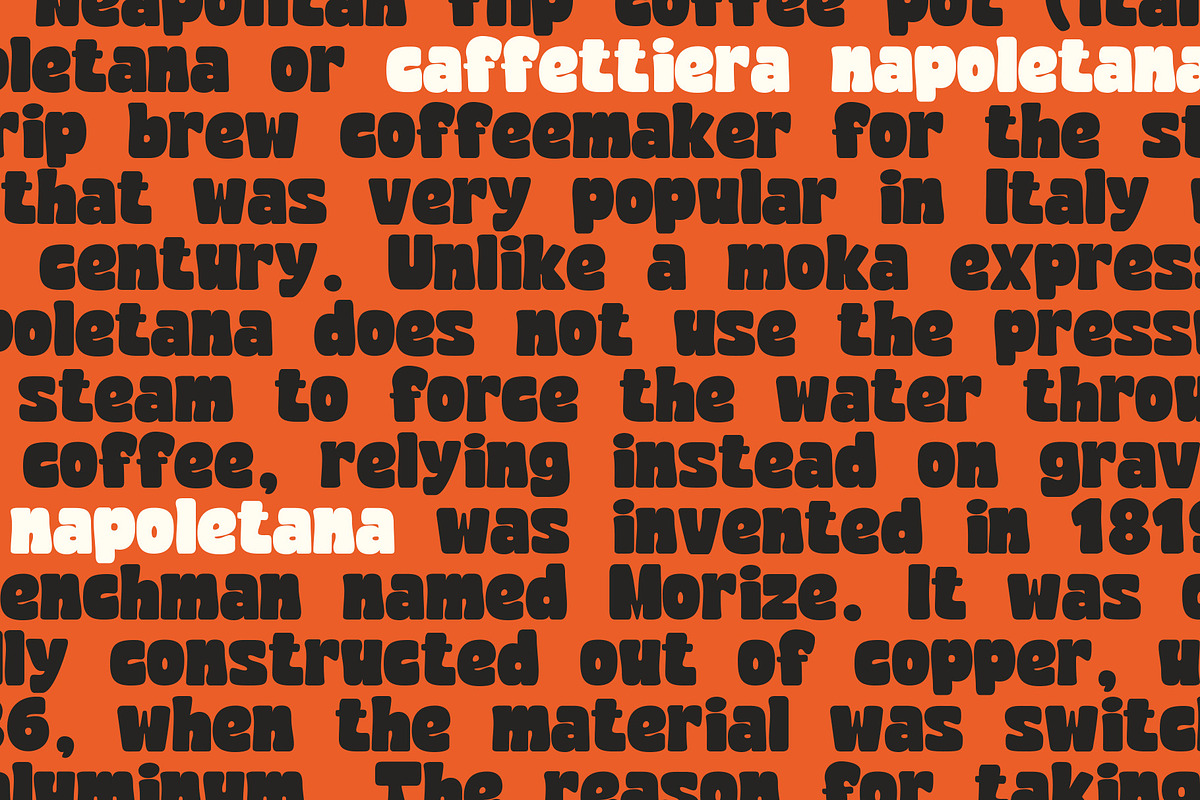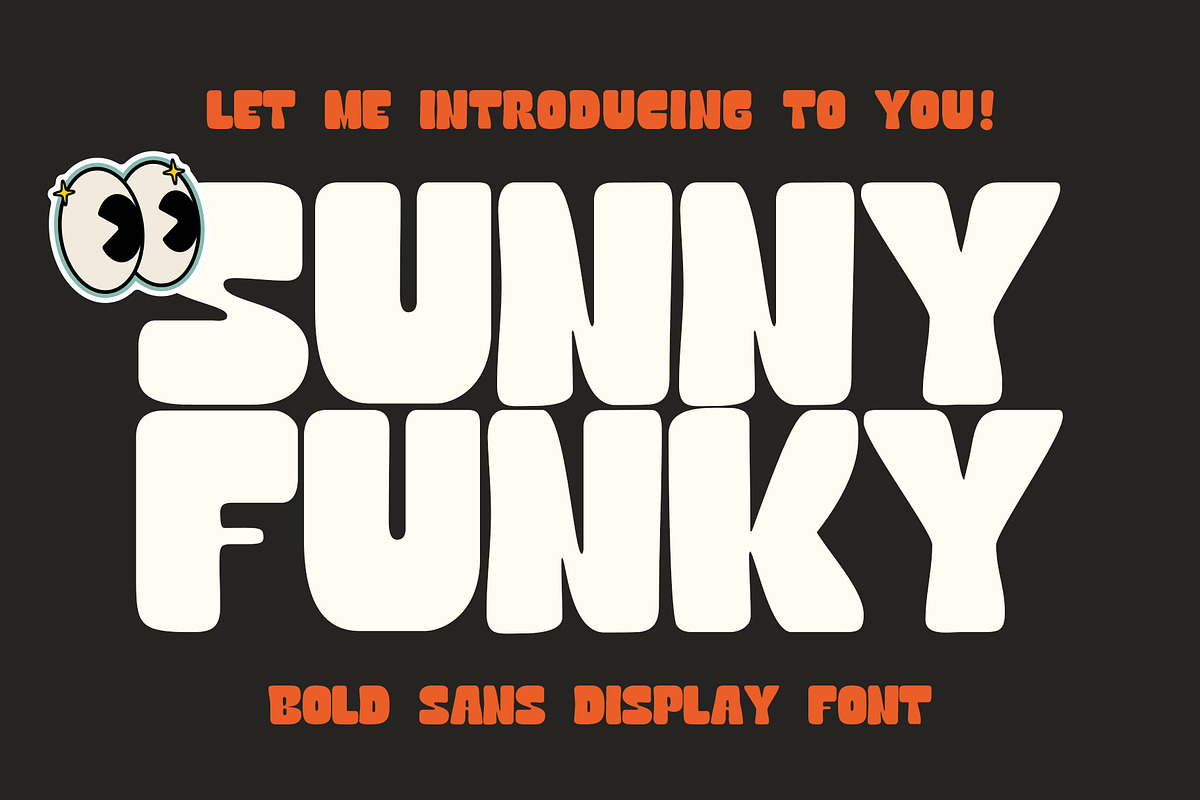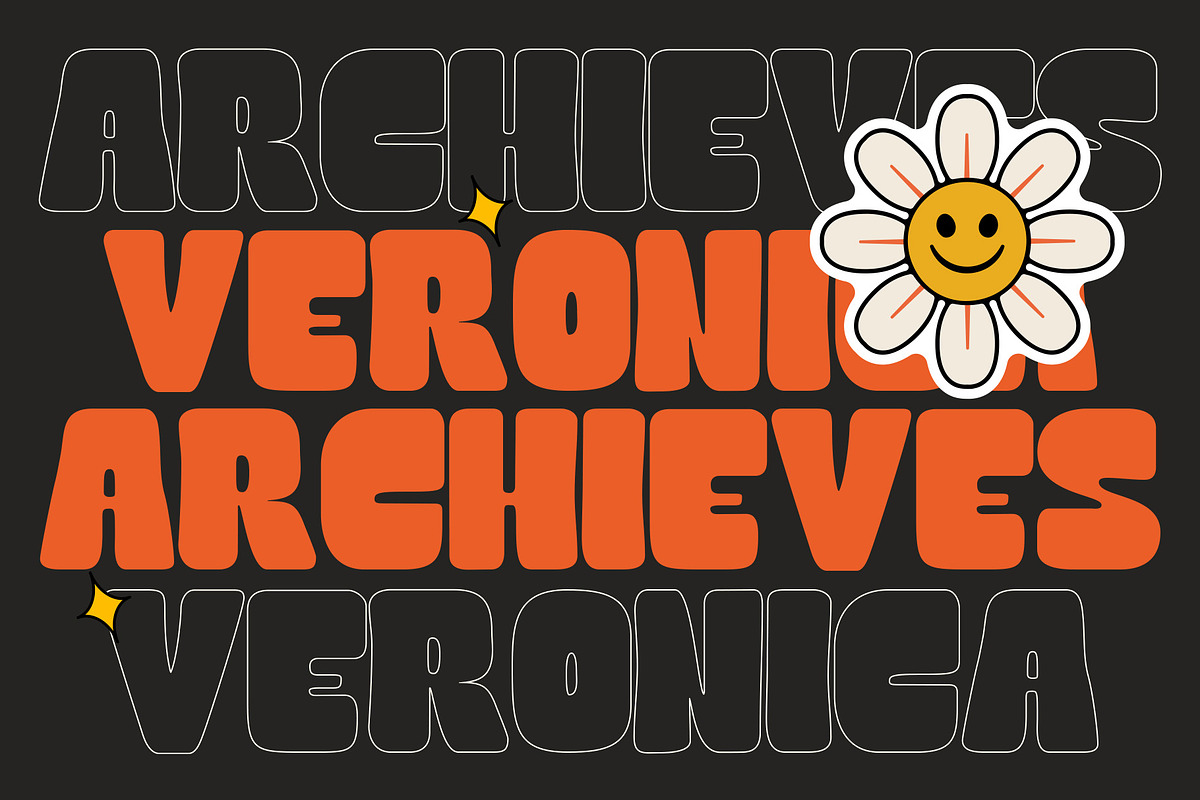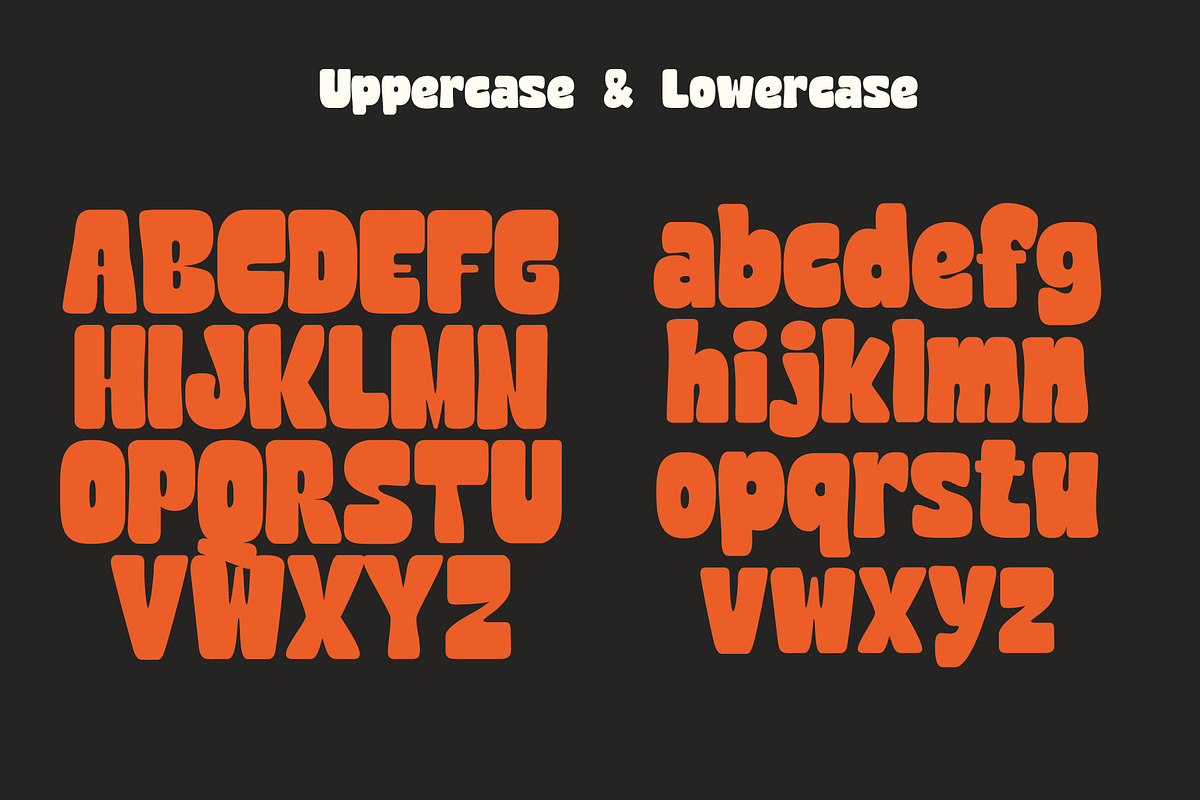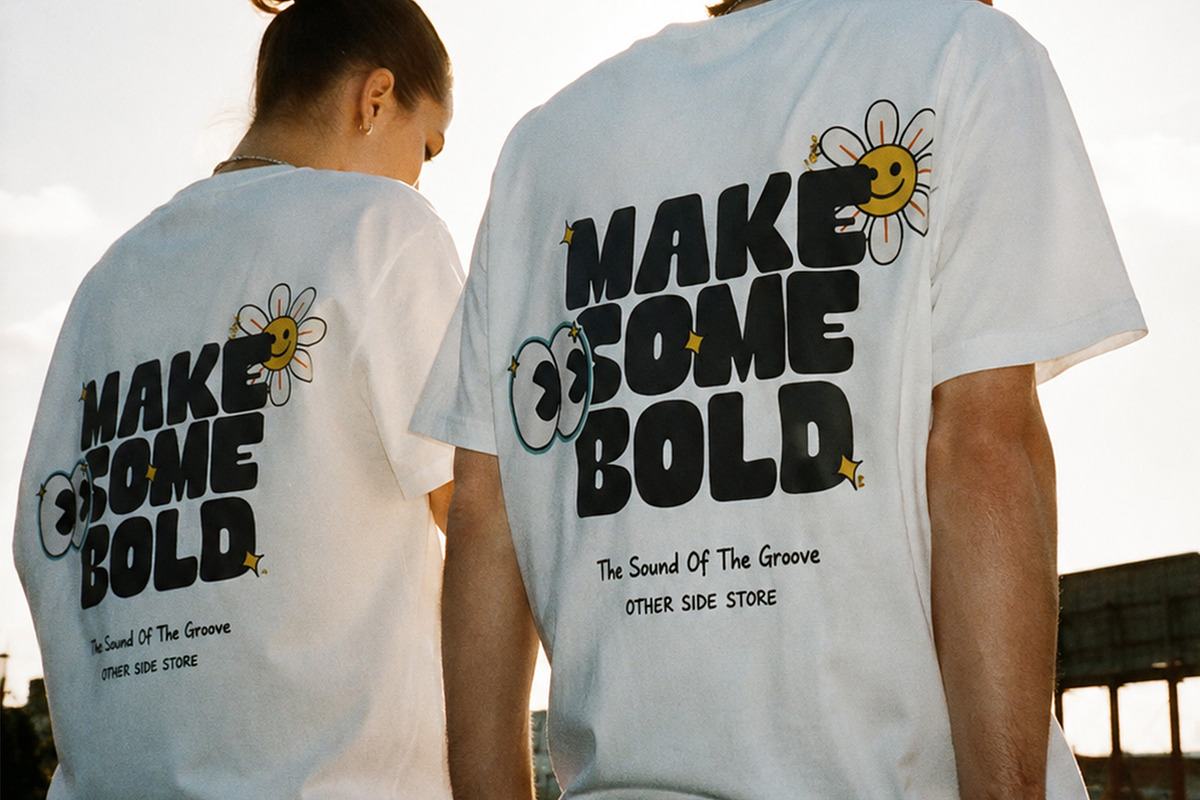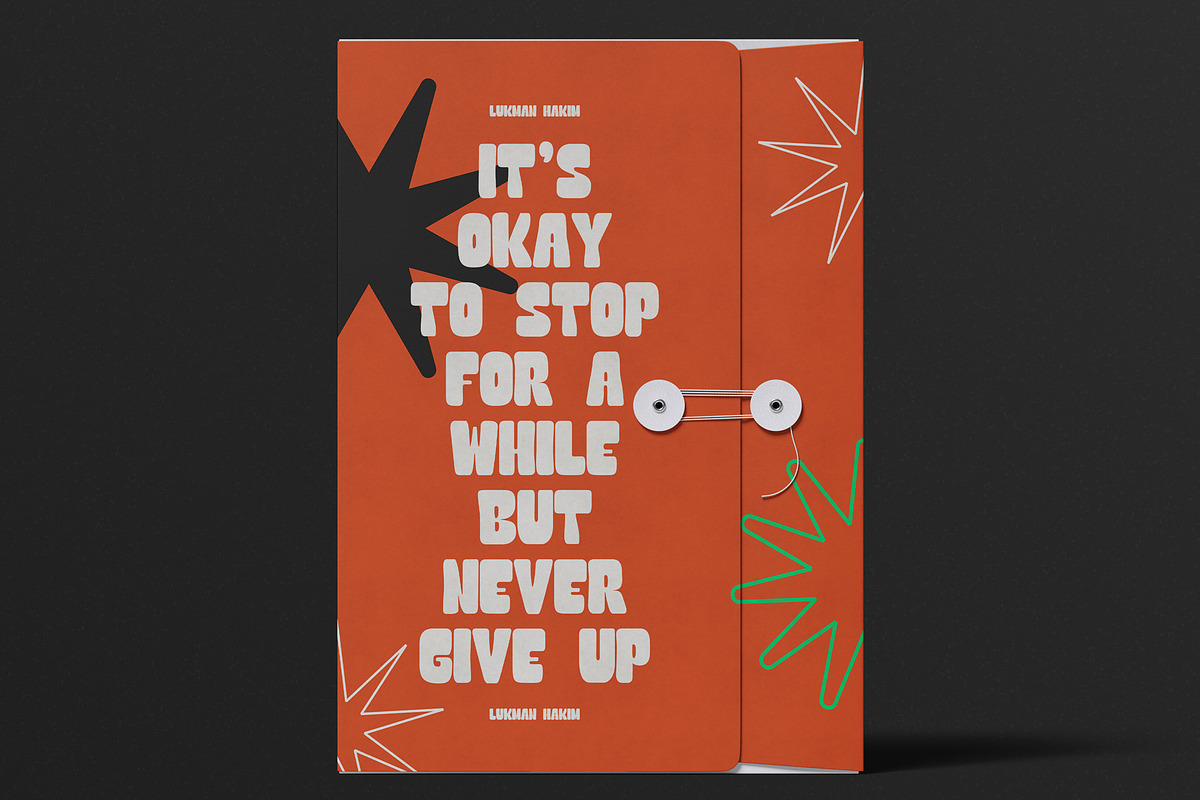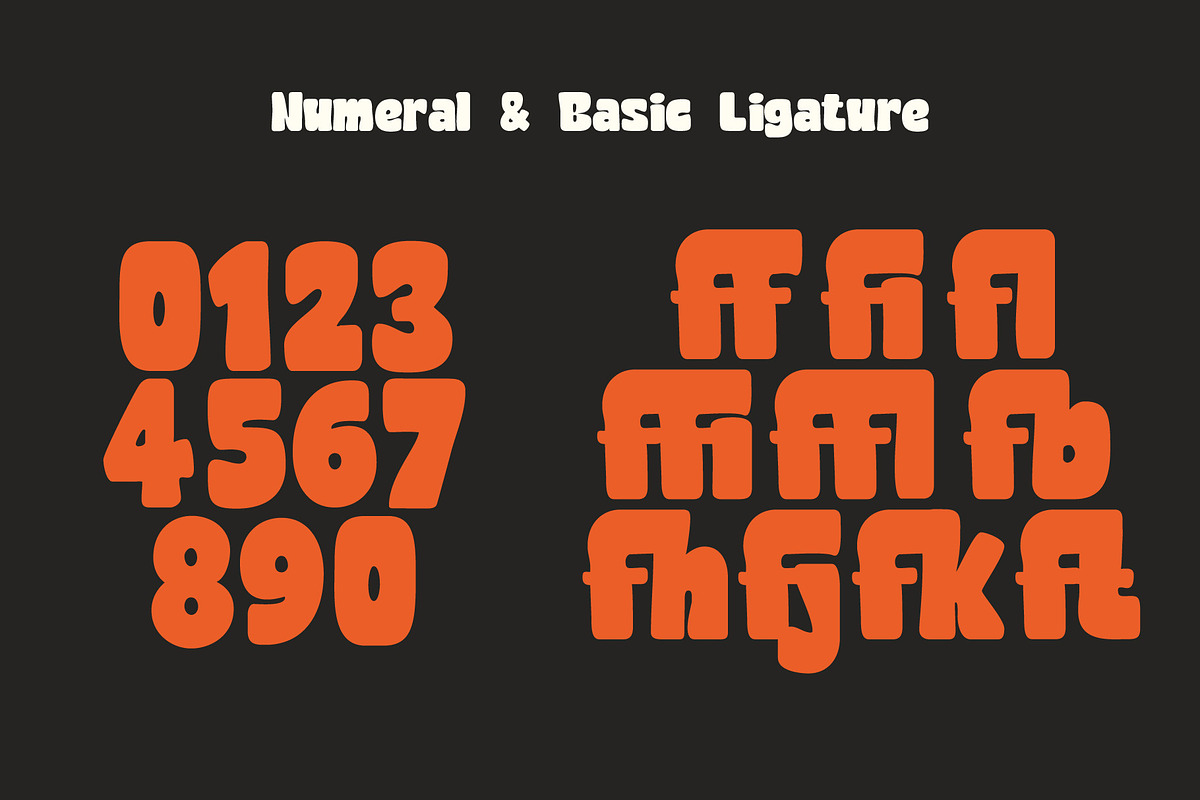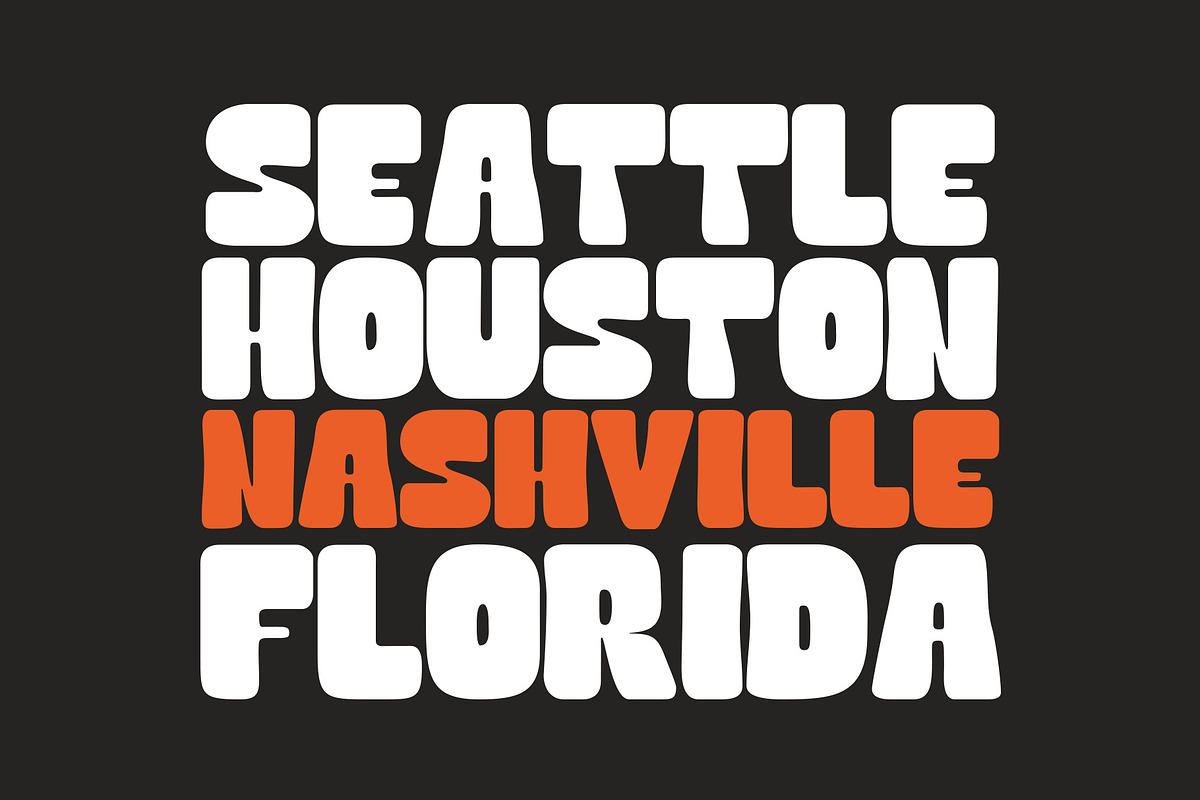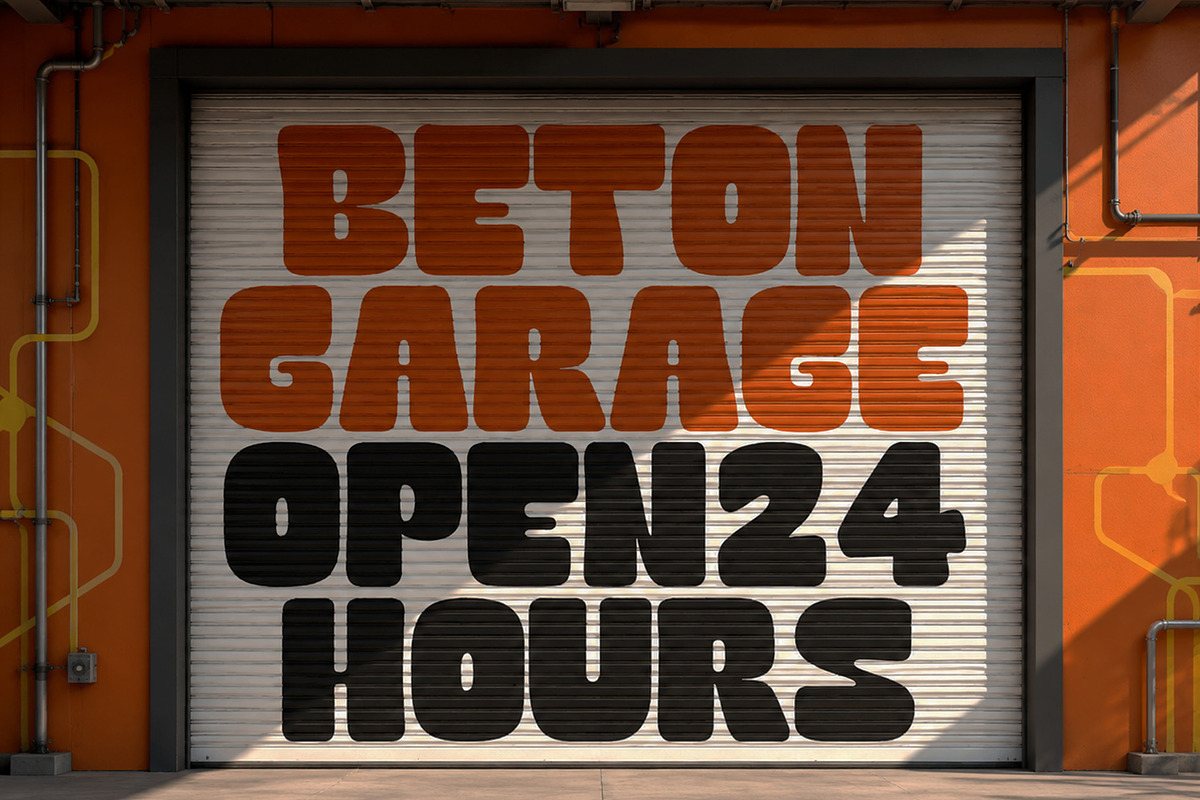
Sunny Funky Bold Display Font
Sunny Funky is a bold sans display font bursting with cheerful personality, playful energy, and retro-inspired charm. Designed with chunky letterforms, smooth rounded corners, and a fun cartoon aesthetic, this typeface instantly grabs attention while remaining highly readable. Whether you're creating children's branding, eye-catching posters, YouTube thumbnails, social media graphics, product packaging, or playful logos, Sunny Funky delivers a joyful and memorable look.
Its bold and friendly appearance makes it perfect for projects that need a vibrant, energetic, and approachable feel. From birthday invitations and school designs to comic books, stickers, apparel, and creative merchandise, Sunny Funky brings warmth and excitement to every design. The oversized characters and soft curves create a nostalgic vintage vibe while maintaining a fresh, modern style that works across both print and digital media.
If you're looking for a fun display font that combines retro inspiration with modern versatility, Sunny Funky is the perfect choice to make your typography stand out with confidence and creativity.
Logos & Branding
Children's Books
Posters & Flyers
T-Shirt Designs
YouTube Thumbnails
Stickers & Labels
Cartoon & Comic Projects
Headlines & Display Typography